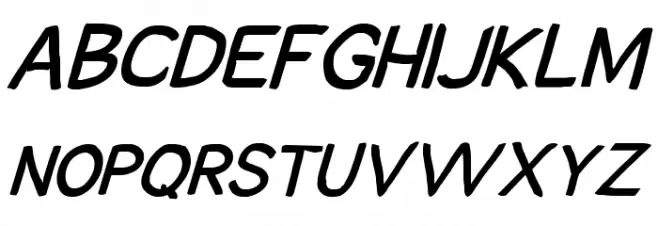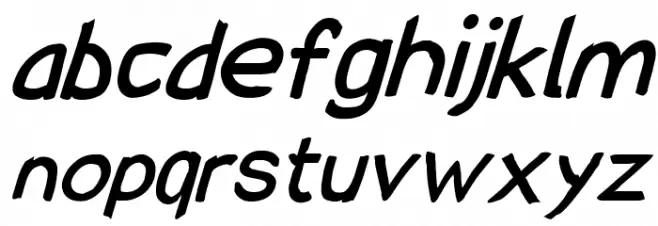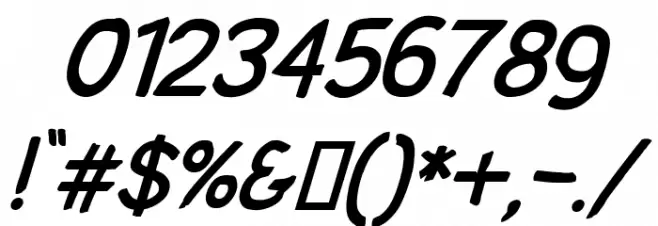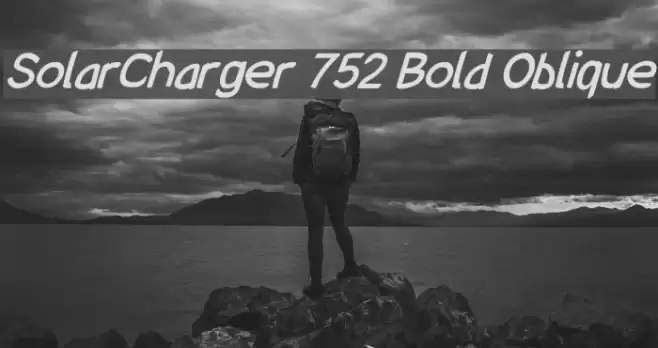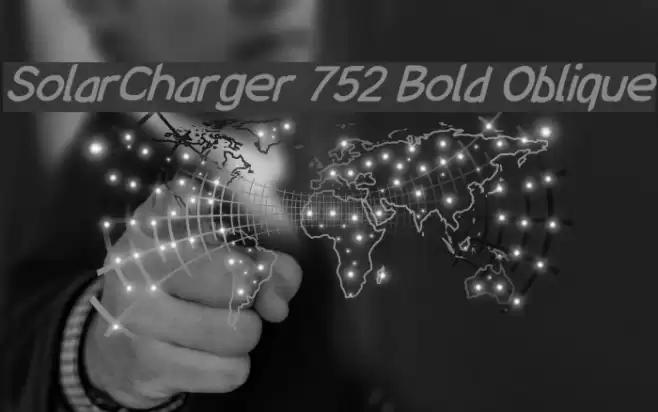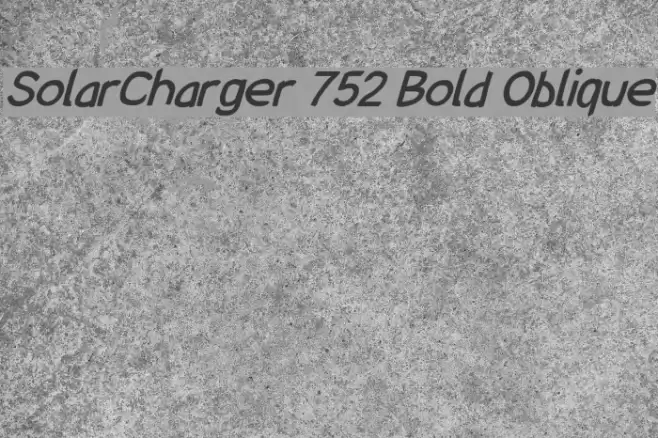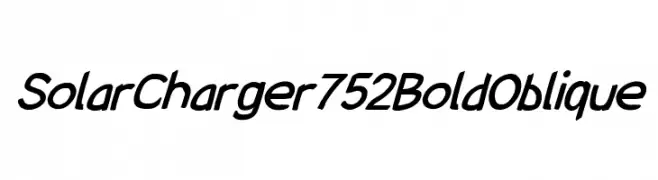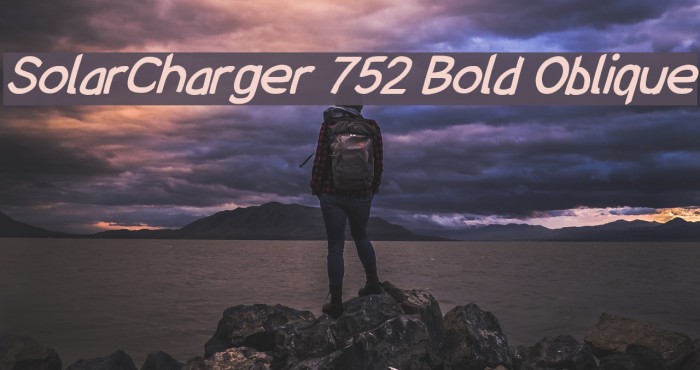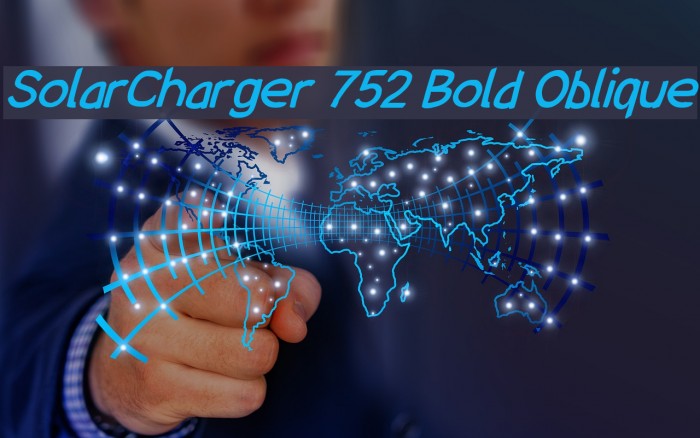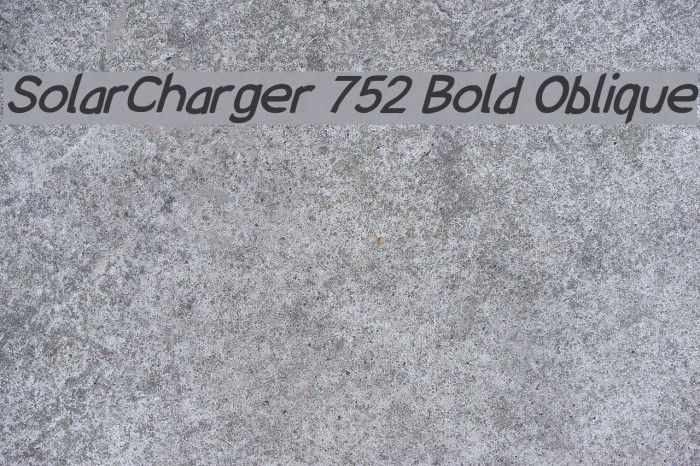
SolarCharger 752 Bold Oblique
This font features a bold and oblique style, characterized by its dynamic and forward-leaning appearance. The letters are thick and robust, providing a strong visual impact. The strokes are consistent in weight, offering a uniform look across all characters. The font maintains a modern and energetic feel, suitable for projects that require a sense of movement and emphasis. Its oblique nature adds a sense of urgency and direction, making it ideal for attention-grabbing headlines or promotional materials. The characters are well-spaced, ensuring readability while maintaining a cohesive look.
Bold and oblique font with a dynamic, modern style.
- Proposed Projects: Ideal for headlines, advertising, branding, and promotional materials.